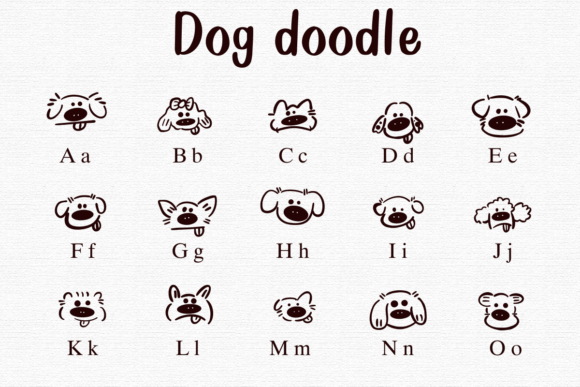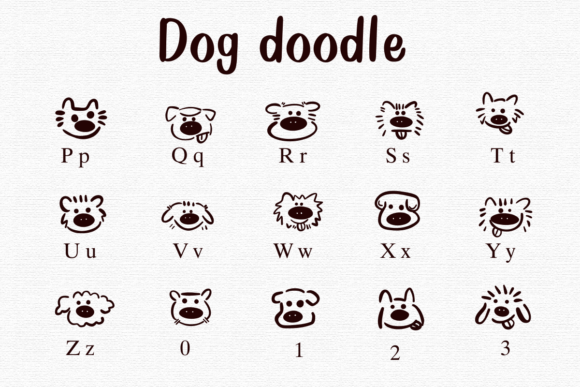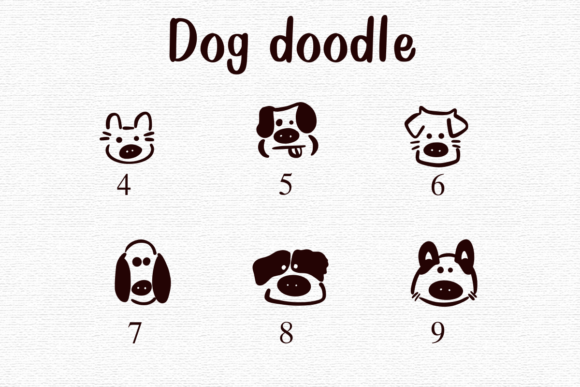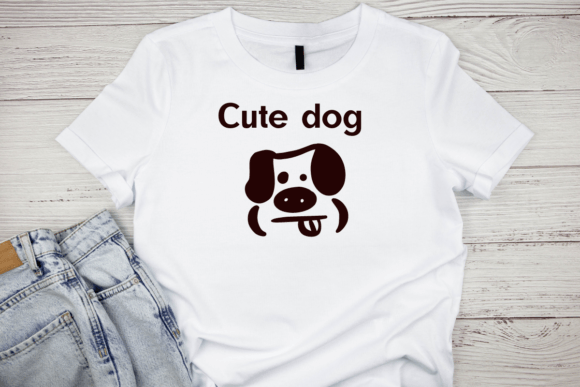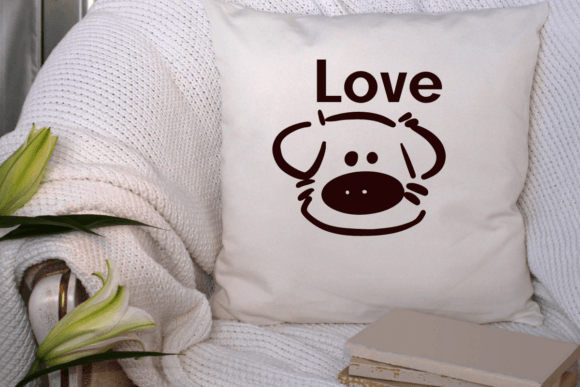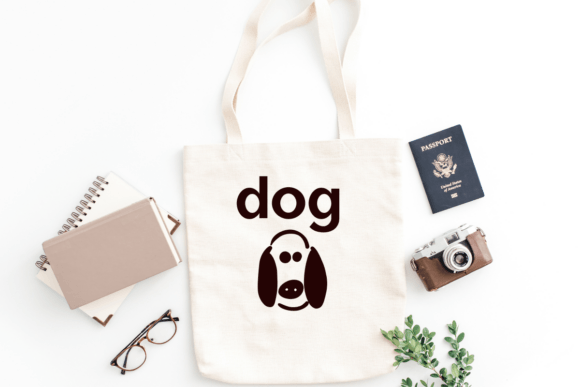
Unleash Joy with Dog Doodle Font: The Playful Dingbat for Your Designs
Are you looking for a font that can add a dash of playfulness and whimsy to your designs? Look no further than the Dog Doodle Font! This delightful dingbat font features an adorable dog’s face in each character, guaranteeing to bring smiles and joy to your projects. In this article, we’ll dive into the world of Dog Doodle Font, exploring its features, uses, and benefits for designers and crafters.
What is Dog Doodle Font?
Dog Doodle Font is a unique dingbat font that showcases a cute dog’s face in various expressions. The design is intentionally playful and whimsical, making it perfect for adding a cheerful touch to your designs. Each character in the font features a friendly dog face, ranging from happy and excited to curious and playful. With Dog Doodle Font, you can add a personal touch to your projects and make them more engaging and fun.
Key Features of Dog Doodle Font
- Playful and Whimsical Design: Dog Doodle Font boasts a playful and whimsical design that is sure to capture the attention of your audience.
- Cute Dog Expressions: Each character in the font features a unique and adorable dog expression, adding a touch of personality to your designs.
- Dingbat Font: Dog Doodle Font is a dingbat font, which means that each character is a graphical representation of a dog’s face, rather than a traditional letter or symbol.
- Multipurpose: Dog Doodle Font can be used in a variety of projects, from digital designs to print materials, and from children’s products to adult-oriented projects.
Uses of Dog Doodle Font
Dog Doodle Font is an incredibly versatile font that can be used in a wide range of projects, including:
- Children’s Products: Dog Doodle Font is perfect for children’s books, educational materials, and toys, adding a fun and playful touch to your designs.
- Greeting Cards and Invitations: Add a personal touch to your greeting cards and invitations with Dog Doodle Font, making them more special and memorable.
- Digital Designs: Use Dog Doodle Font in your digital designs, such as social media graphics, blog posts, and website headers, to add a playful and whimsical touch.
- Crafting and Scrapbooking: Dog Doodle Font is a great addition to any crafter’s or scrapbooker’s toolkit, allowing you to add a fun and personalized touch to your projects.
Benefits of Using Dog Doodle Font
So, why should you choose Dog Doodle Font for your designs? Here are just a few benefits:
- Unique and Eye-Catching: Dog Doodle Font is a one-of-a-kind font that is sure to capture the attention of your audience and set your designs apart.
- Emotional Connection: The playful and whimsical design of Dog Doodle Font is sure to evoke emotions and create a connection with your audience.
- Fun and Playful: Dog Doodle Font adds a fun and playful touch to your designs, making them more enjoyable and engaging.
In conclusion, Dog Doodle Font is a fun and playful dingbat font that is perfect for adding a cheerful touch to your designs. With its unique and eye-catching design, emotional connection, and ease of use, Dog Doodle Font is an excellent choice for designers and crafters looking to add a personal touch to their projects. Whether you’re working on children’s products, greeting cards, digital designs, or crafting and scrapbooking projects, Dog Doodle Font is sure to bring smiles and joy to your audience.